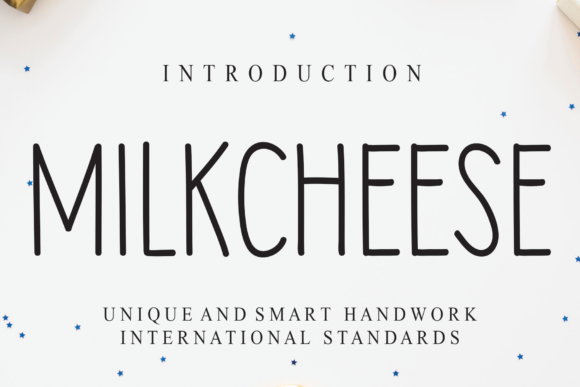
Behold, the Milkcheese Font: A Culinary Masterpiece for Your Product Labels!
Dive into the world of Milkcheese, a thin and clean handwritten font that's set to tantalize your taste buds and elevate your product labels to new heights of culinary delight. Crafted with precision and passion by renowned calligrapher Roronoa zoro.S.P.D, this font is an artistic masterpiece that captures the essence of gourmet cuisine and handcrafted artistry.
Picture this: Your product labels adorned with the elegant strokes of Milkcheese, transforming them into miniature works of art. Whether it's a bottle of artisanal olive oil, a jar of homemade preserves, or a package of freshly baked cookies, Milkcheese adds an irresistible touch of sophistication and charm that will leave your customers craving more.
With its delicate curves and flowing lines, Milkcheese evokes a sense of nostalgia and warmth, conjuring up images of family recipes passed down through generations. The font's carefully chosen characters exude an air of authenticity and craftsmanship, making it the perfect choice for brands that pride themselves on quality and attention to detail.
But Milkcheese is more than just a pretty face; it's a versatile culinary chameleon that effortlessly adapts to a wide range of design styles. From rustic and vintage to modern and minimalist, Milkcheese seamlessly blends in, enhancing your product labels with a touch of elegance that never fails to impress.
So, embark on a culinary adventure with Milkcheese, the font that will transform your product labels into mouthwatering masterpieces. Let your customers savor the visual feast you've created, and watch as they flock to your brand, eager to experience the taste of your culinary creations.